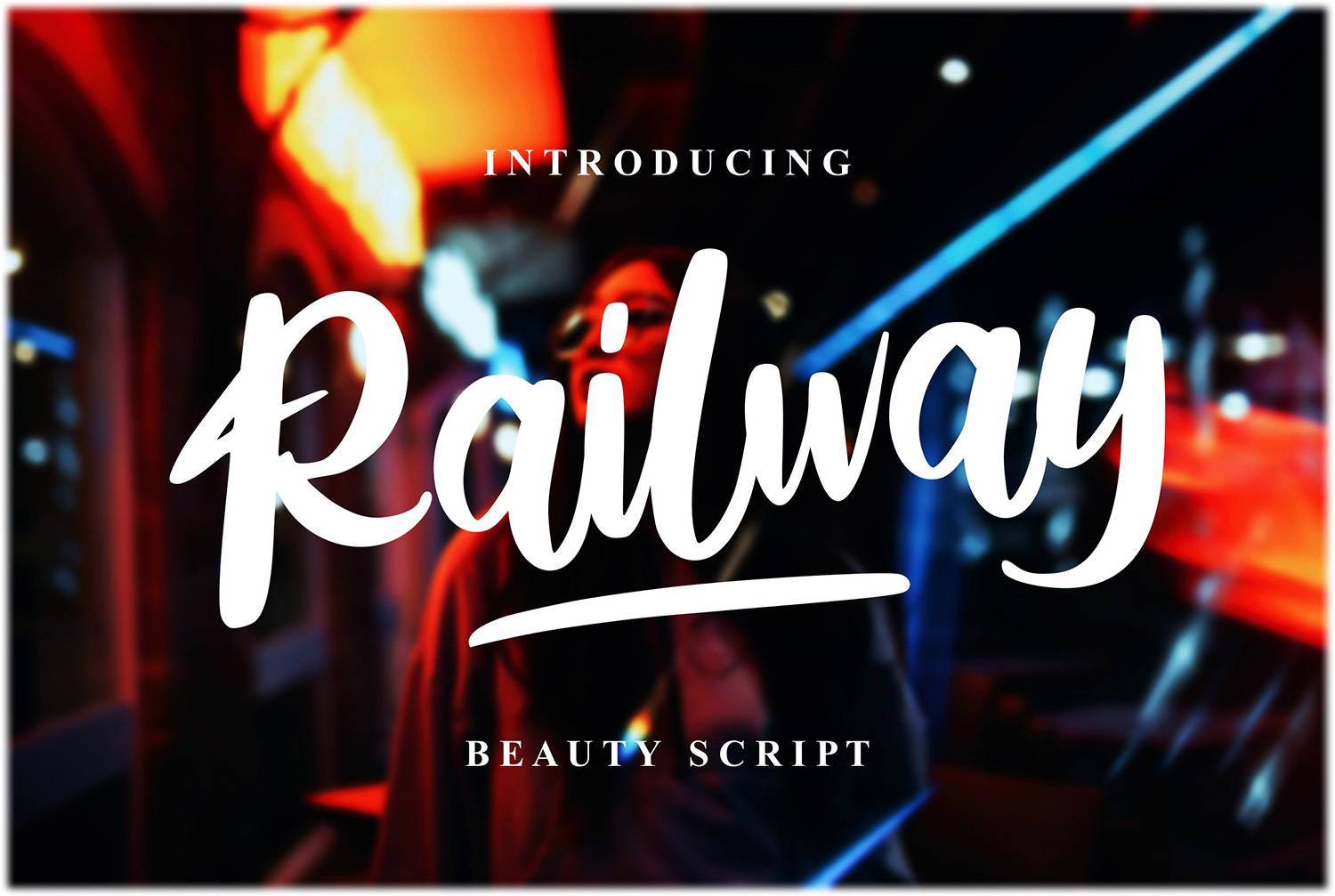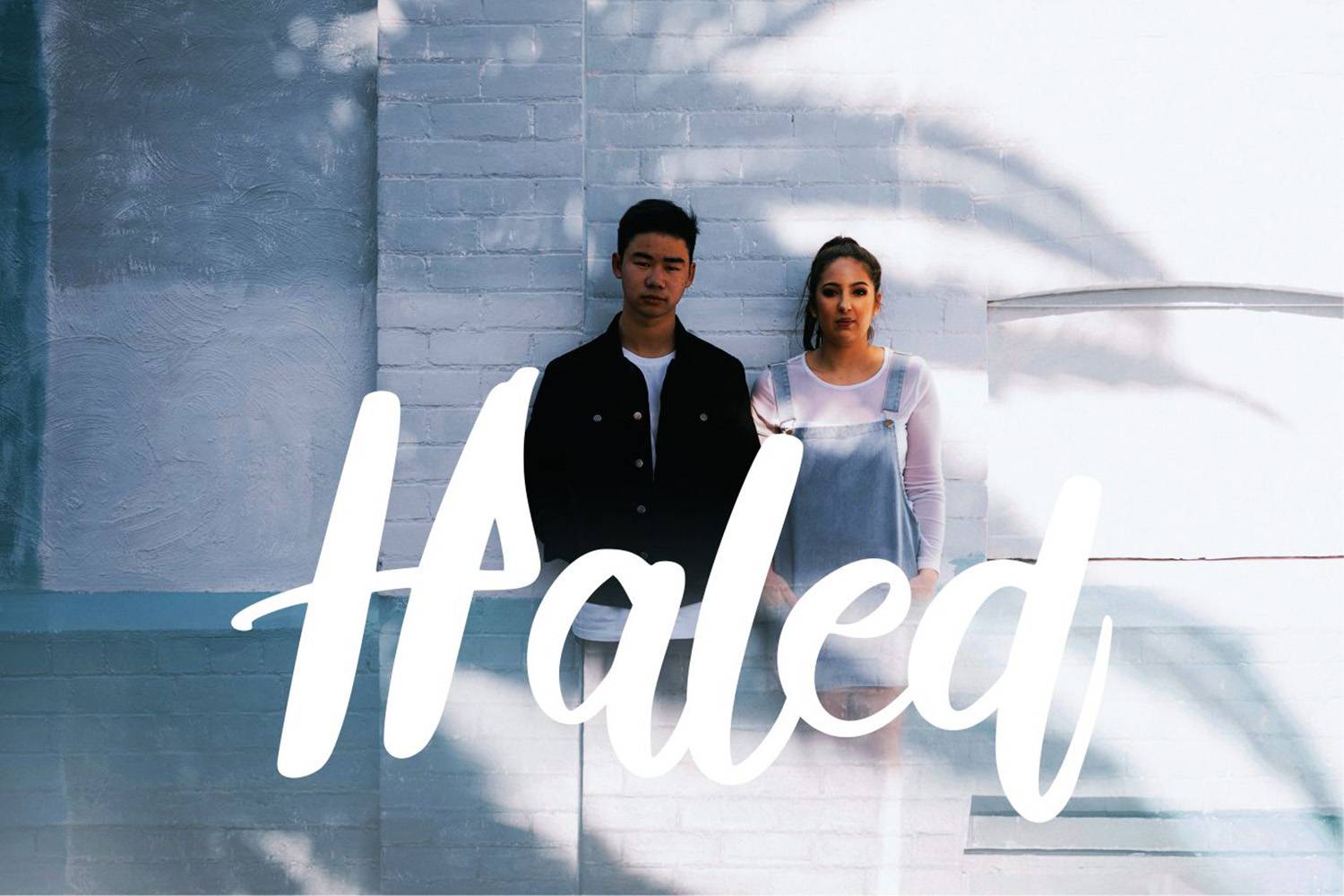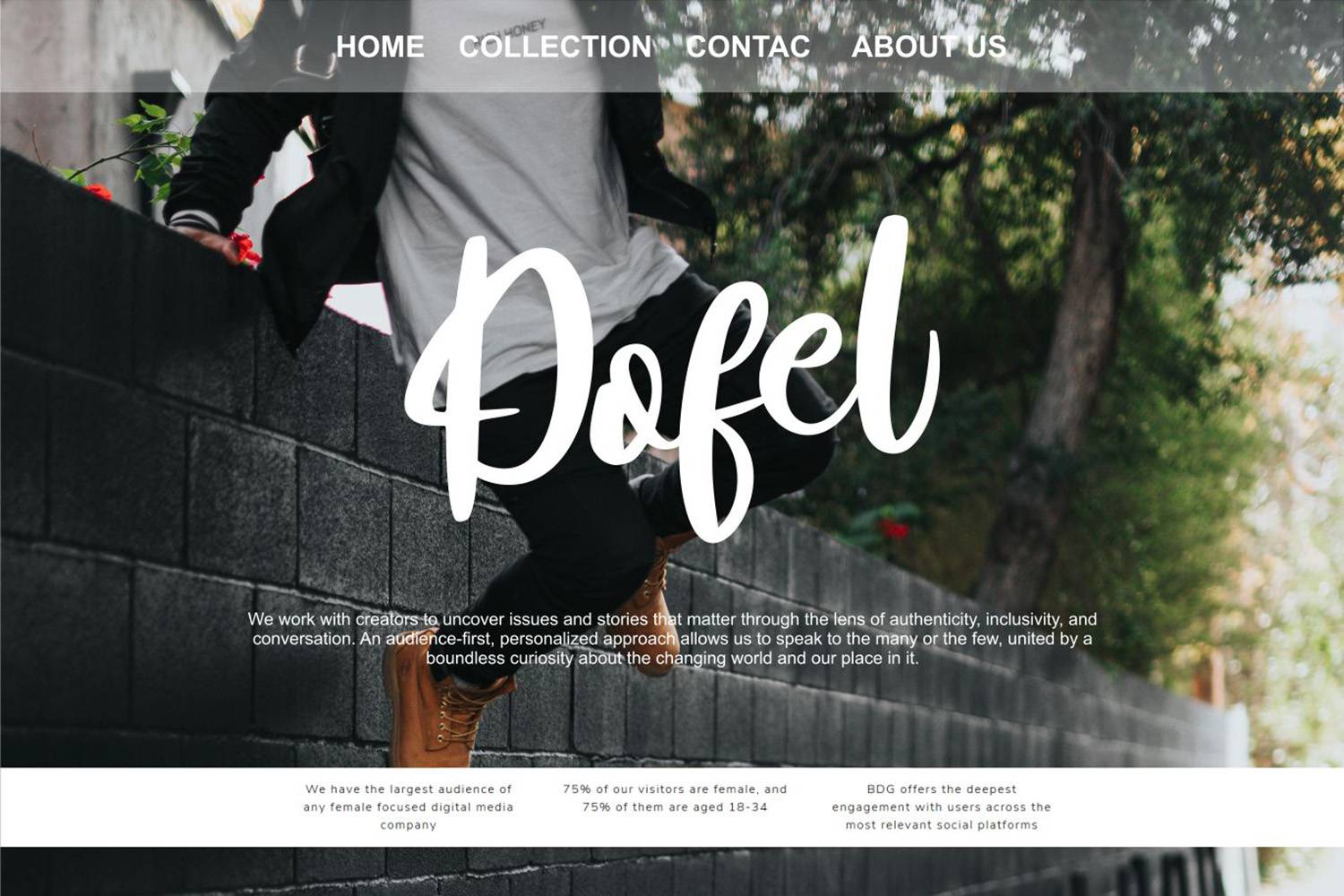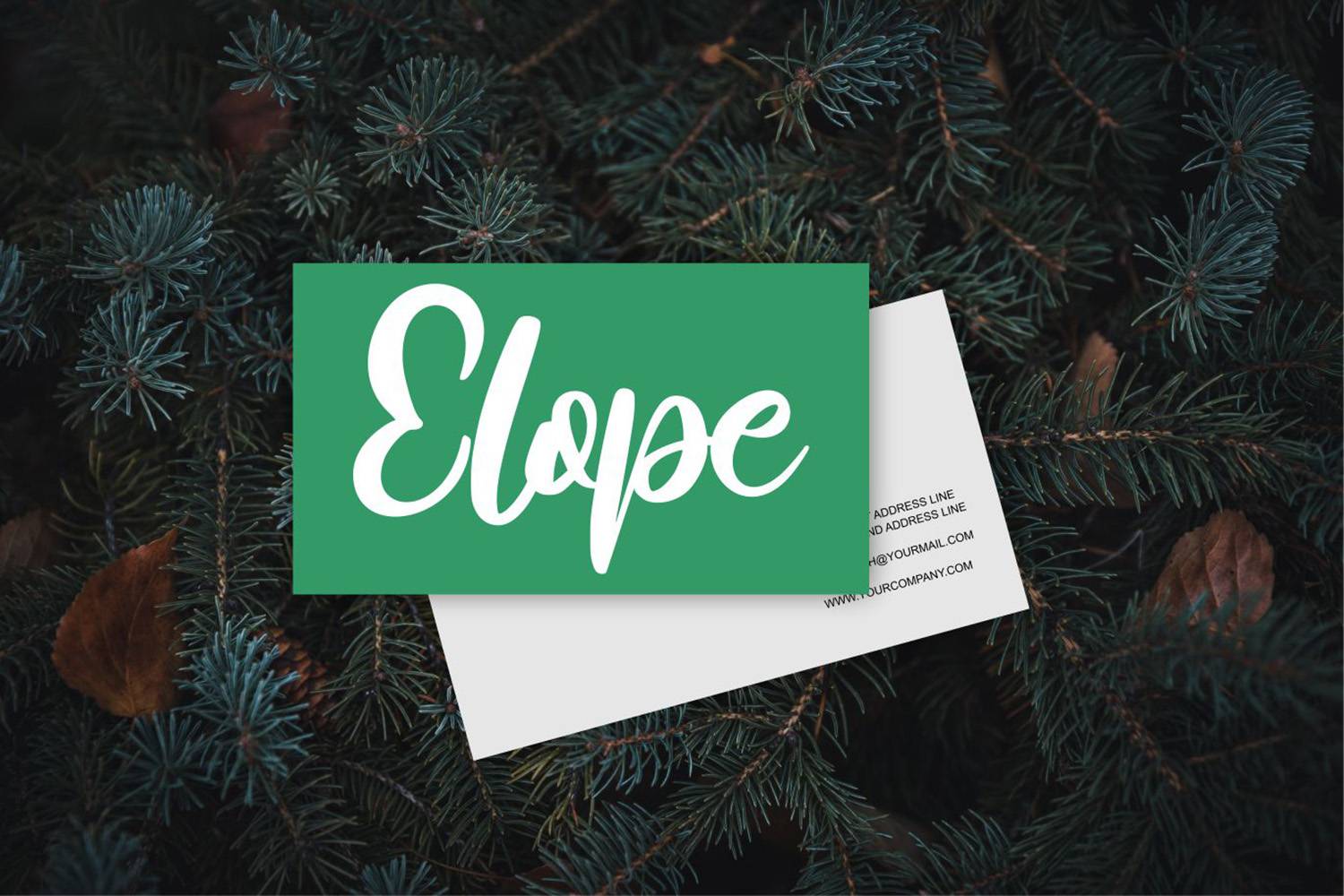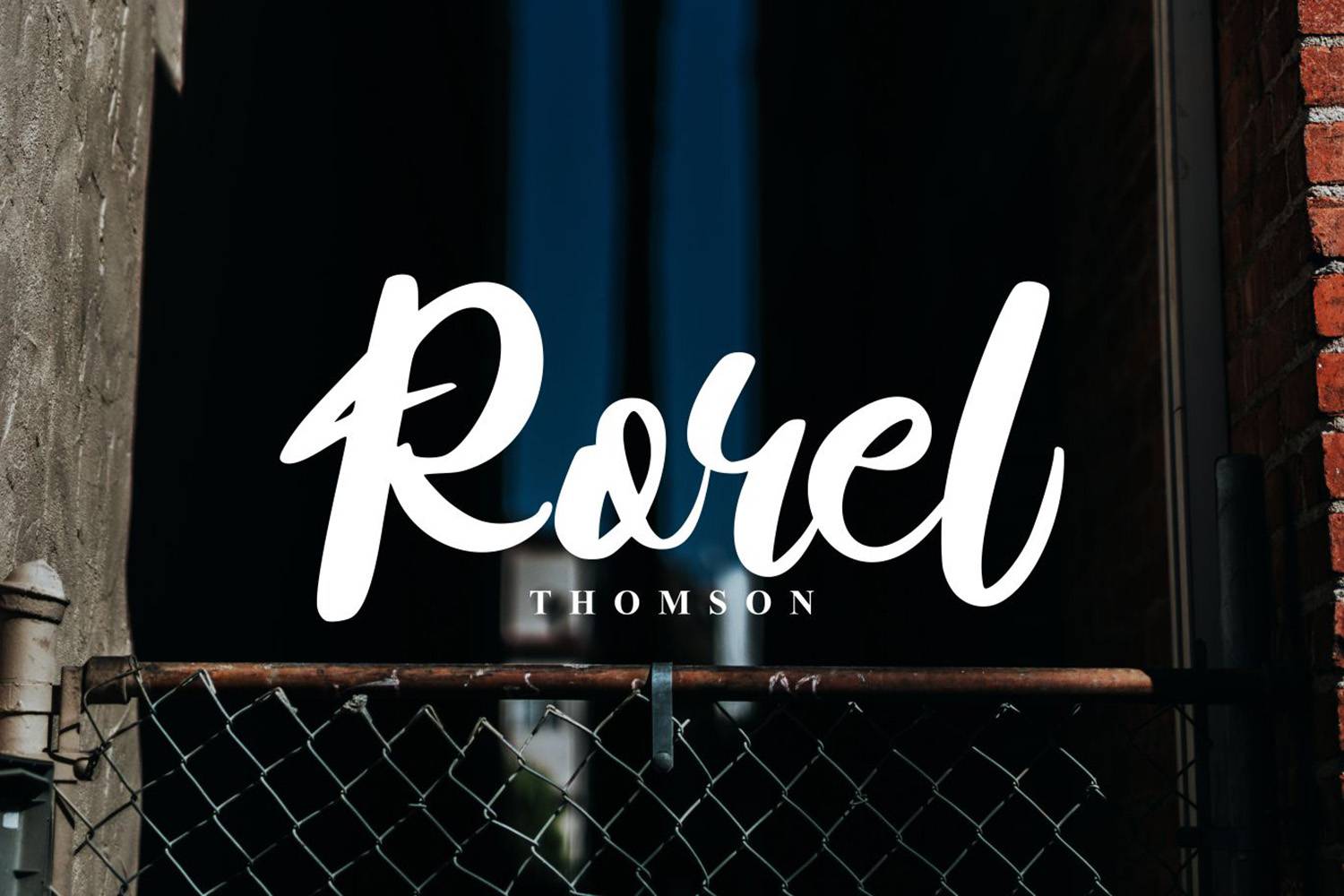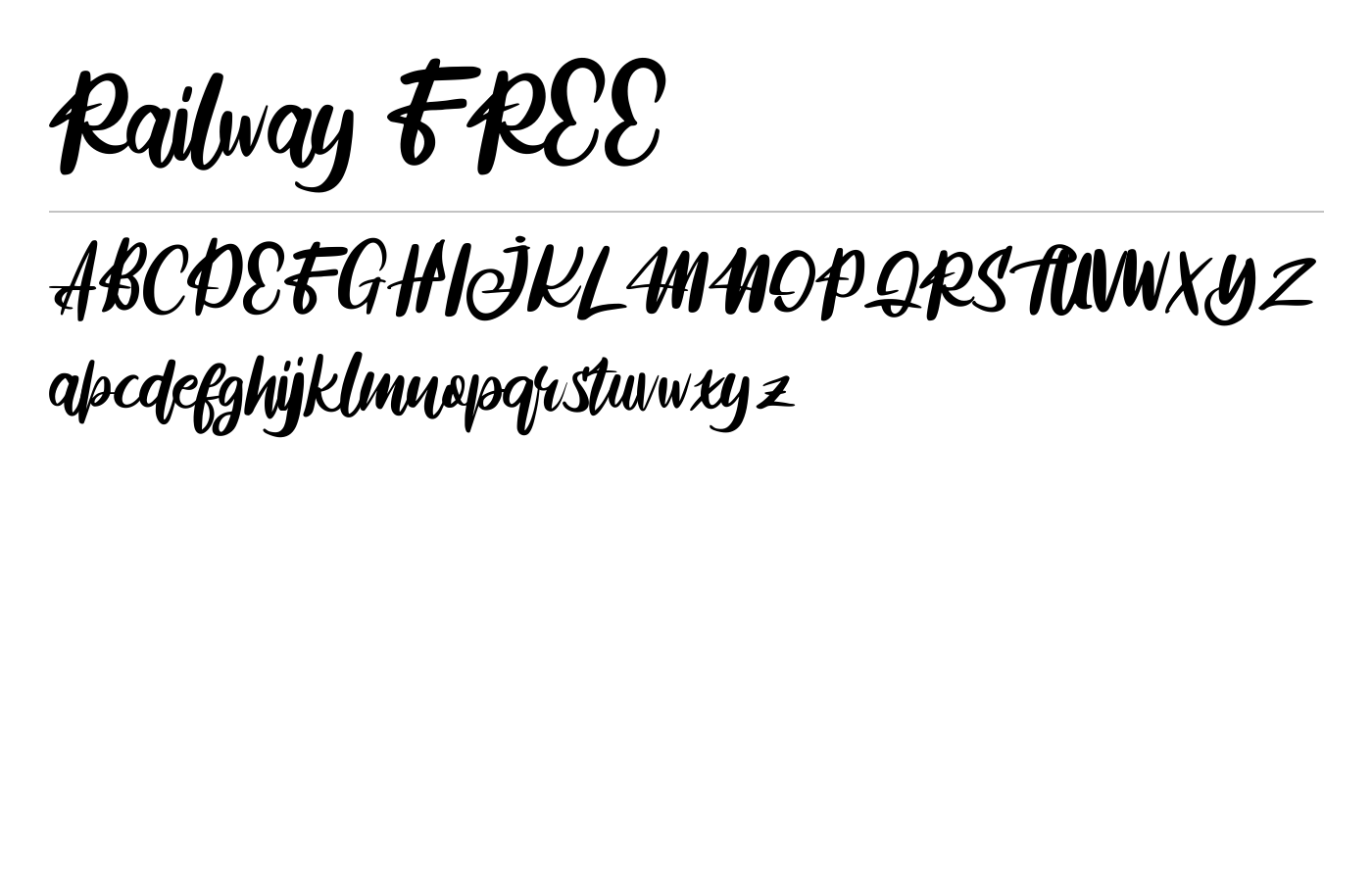
Railway Free is a lively and informal script font with a casual, handwritten feel, characterized by its fluid strokes and moderate weight. Its playful letterforms and smooth connections make it ideal for creative projects, invitations, and branding that seeks a personal, approachable touch. This font works best in headlines and logos where a friendly, artistic vibe is desired.
Railway Font
About Railway Font
| Font family | Railway Font |
| Designer | Fannan Studio |